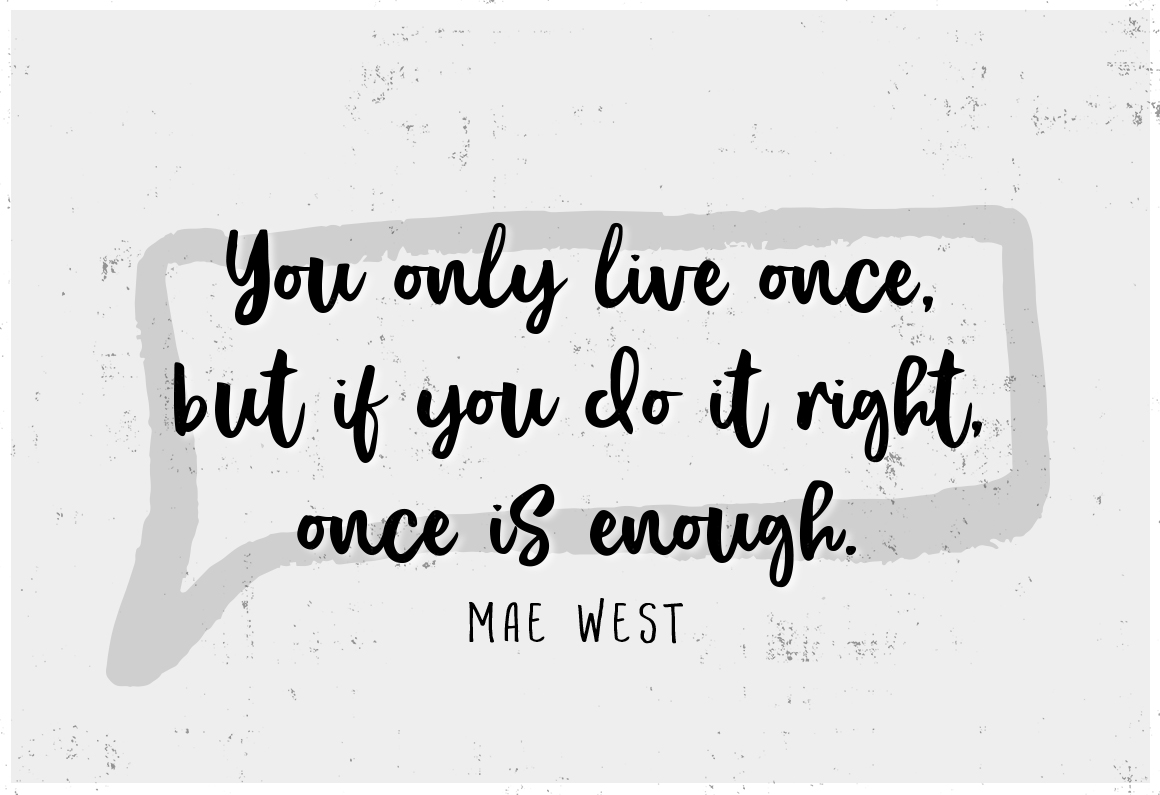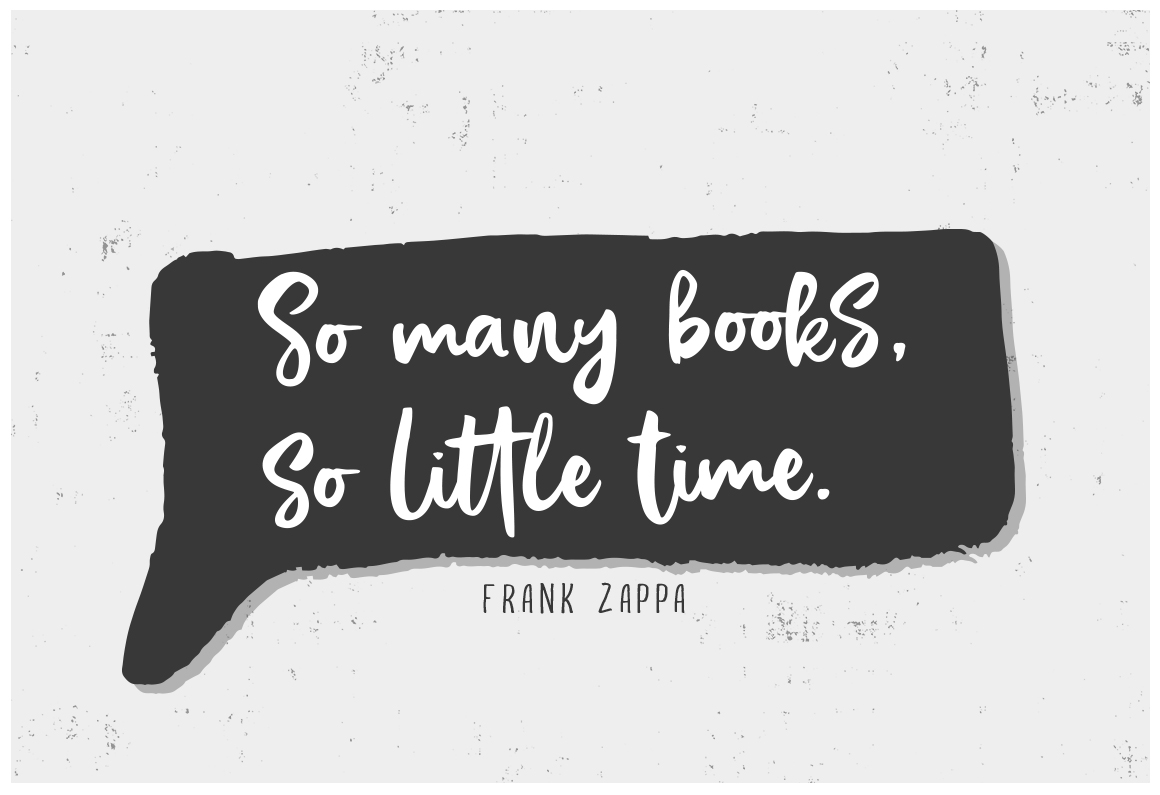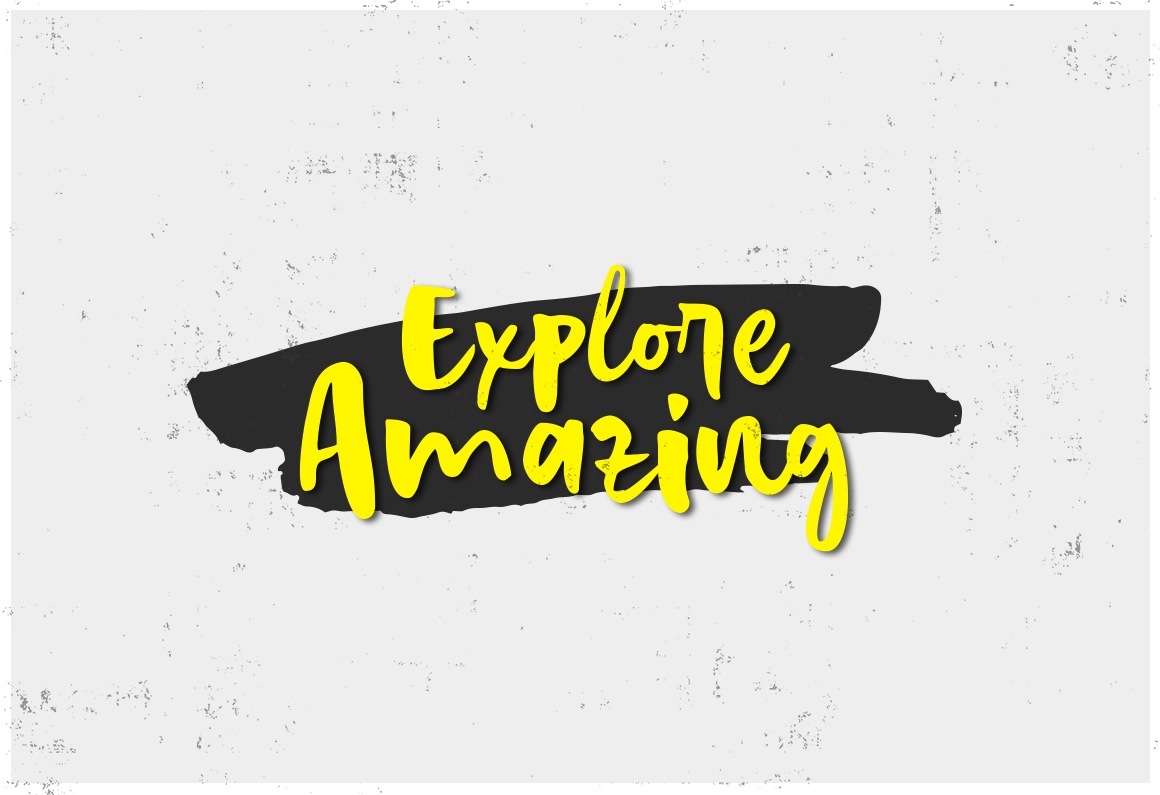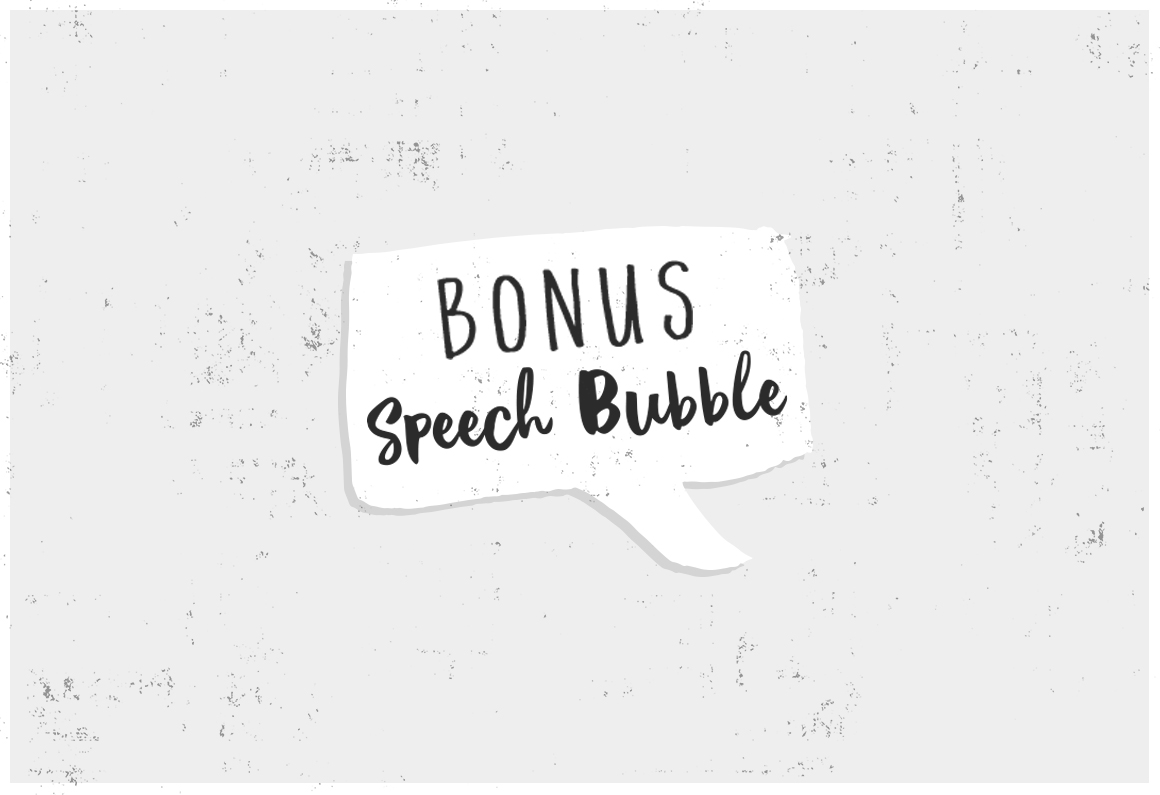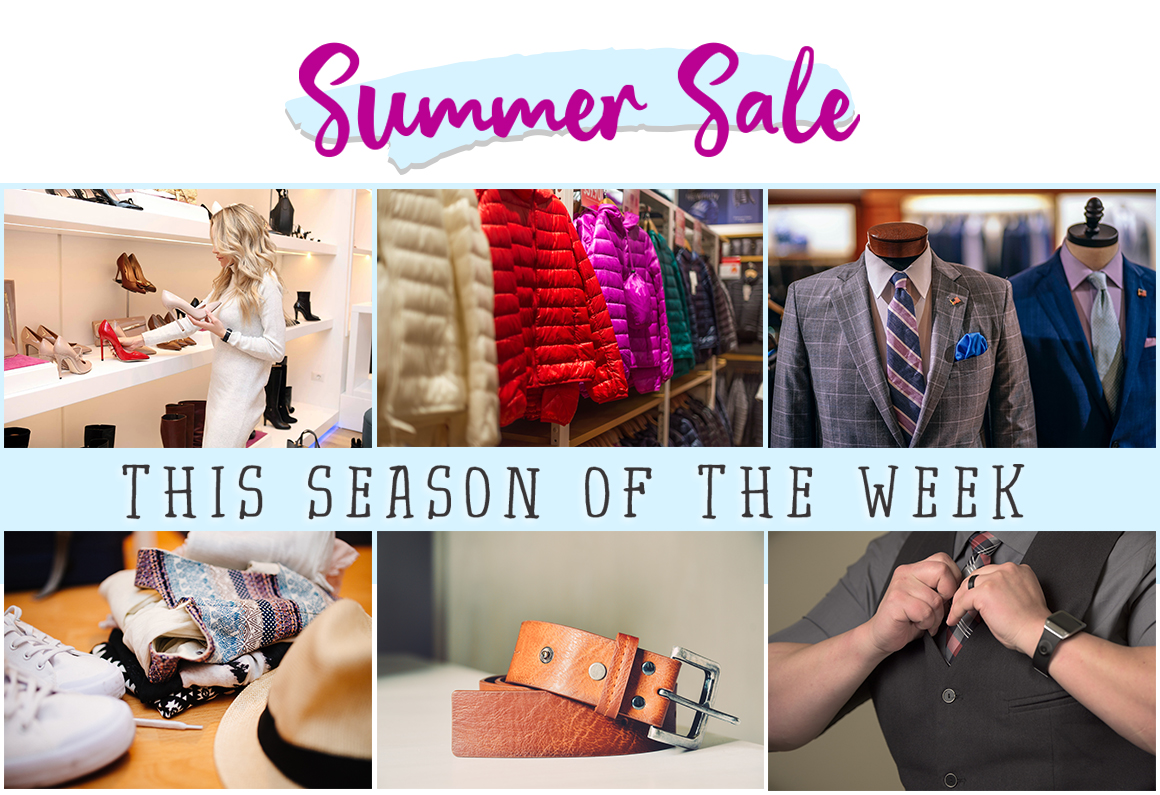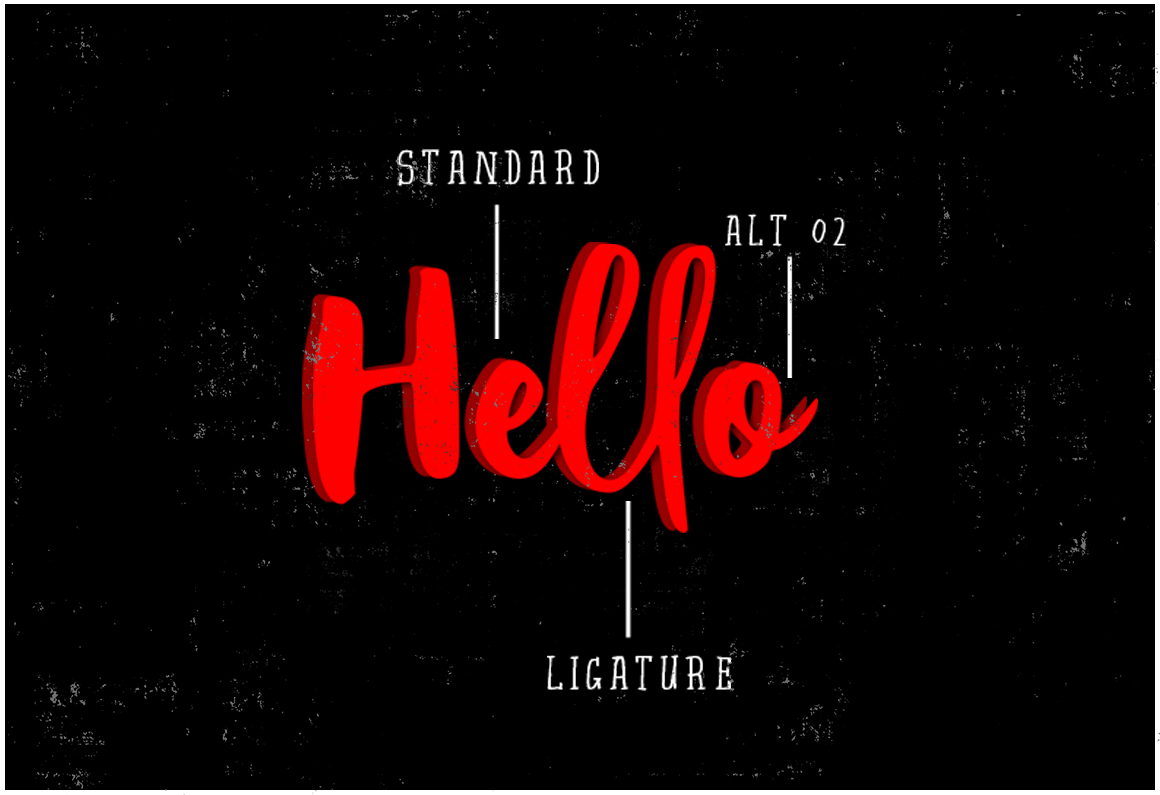
The Evertone Font: A Beautiful Handlettered Addition to Your Design Toolbox
I’ll never forget the design project that led me to discover the Evertone font. I was working on a romantic getaway brochure for a client, and I was struggling to find the perfect font to capture the essence of their luxurious, yet intimate, destination. The font had to be elegant, feminine, and convey a sense of warmth. That’s when I stumbled upon Evertone, and it instantly became my go-to choice.
An Honest Review of Evertone
What I Love About Evertone ✨
- 💕 Authentic feel: Evertone has an undeniably handlettered charm that sets it apart from more uniform fonts.
- 🎉 Bold imperfections: The font’s imperfections make it feel more human and add character to any design.
- ✅ Versatility: Evertone works beautifully in both digital and print designs, making it a versatile addition to any design toolbox.
- 💫 Romantic and feminine: The font’s elegant lines and curves make it perfect for projects that require a touch of romance and femininity.
- ⚠️ Limited use in very formal projects: While Evertone is perfect for romantic and feminine projects, it may not be the best choice for very formal or corporate designs.
- 🤔 Some letters may require manual kerning: As with any handlettered font, some letters may require manual kerning to achieve optimal spacing.
The Story Behind Evertone
Evertone was designed by a talented type designer who wanted to create a font that captured the essence of handlettered elegance. The designer drew inspiration from classic script fonts and added a touch of modern whimsy to create a truly unique font. The result is a beautiful, handlettered font that is perfect for romantic and feminine projects.
| Font Name | Evertone Font |
| Author | Ijem RockArt |
| What is Evertone? | Evertone is a beautiful handlettered font perfect for romantic and feminine projects. |
| Is Evertone suitable for body text? | While Evertone is a beautiful font, it’s best suited for headlines and titles. For body text, consider using a more legible font. |